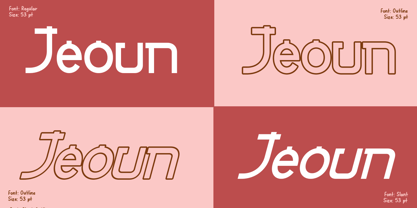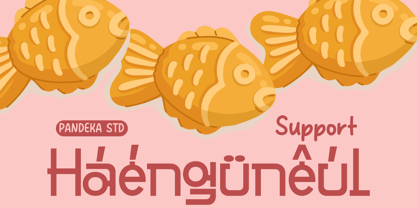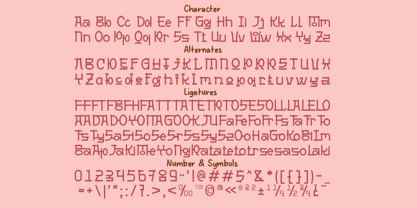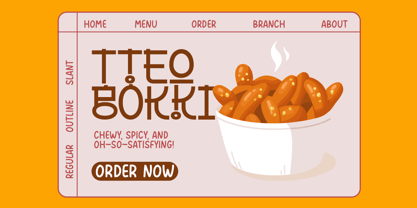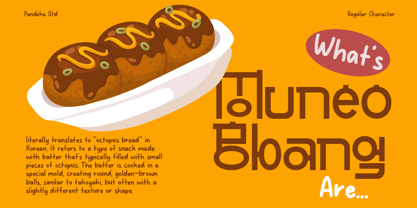
Gyeora
by Pandeka Studio
The Gyeora Font Family was designed by Sagara Nararya and published by Pandeka Studio. Gyeora contains 4 styles and family package options. More about this family
Gyeora - A versatile Korean display typeface that combines bold typography with traditional aesthetics and modern design. With 4 unique styles (Outline, Outline Slant, Regular, Slant), Gyeora is perfect for cultural projects, branding, logos, posters, and designs that demand a unique and stylish touch.
• 4 Styles: Outline, Outline Slant, Regular, Slant
• Full Character Set: uppercase, lowercase, numbers, symbols, punctuation and ligature
• 80+ Ligatures and alternates
Whether for traditional or contemporary themes, Gyeora brings timeless beauty and cultural charm to your work.
Designers: Sagara Nararya
Foundry: Pandeka Studio